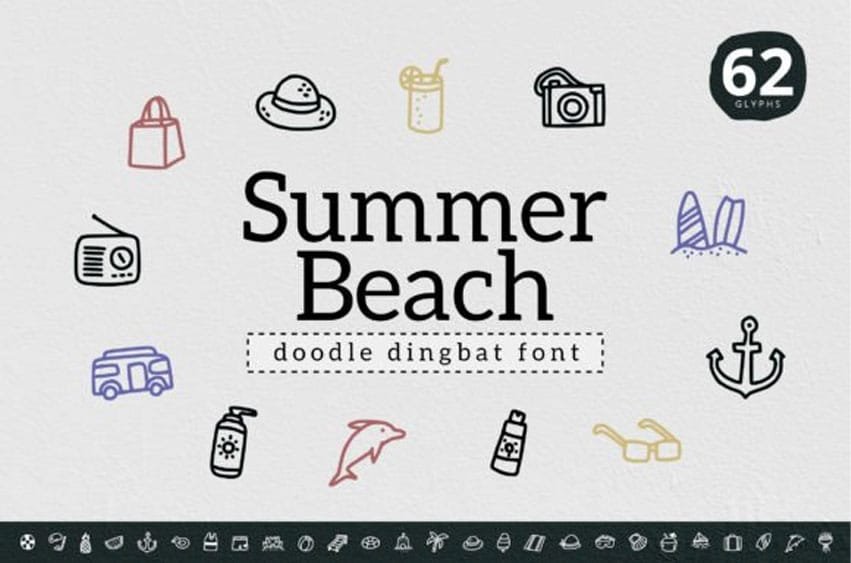
Summer Beach Doodle Font is a fun and useful dingbats font perfect for a wide variety of projects.
Use it for stickers, posters, t-shirts, cards, apparel graphics, etc.; you will love the results!